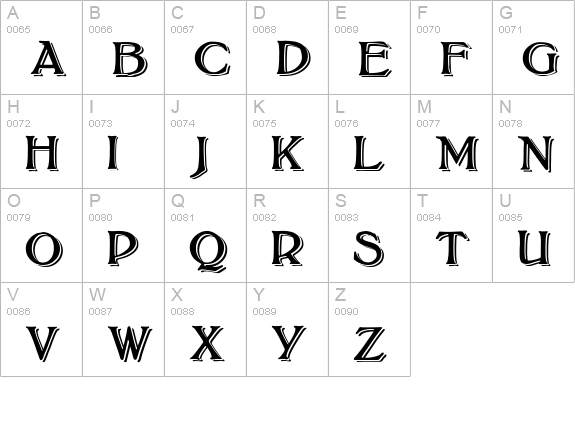
BoltonShadowed Font Details
BoltonShadowed font is a stunning display typeface that exudes elegance and sophistication. With its intricate shadowed details and timeless charm, this font is perfect for creating eye-catching headlines, logos, and branding materials. The unique design of BoltonShadowed font adds a touch of drama and flair to any project, making it stand out from the crowd. The best part? BoltonShadowed font is completely free to download at FontsMarket.com. Whether you're a designer looking to add a touch of elegance to your work or a business owner in need of a unique and memorable font for your branding, BoltonShadowed is the perfect choice. Download this beautiful font today and elevate your designs to the next level.